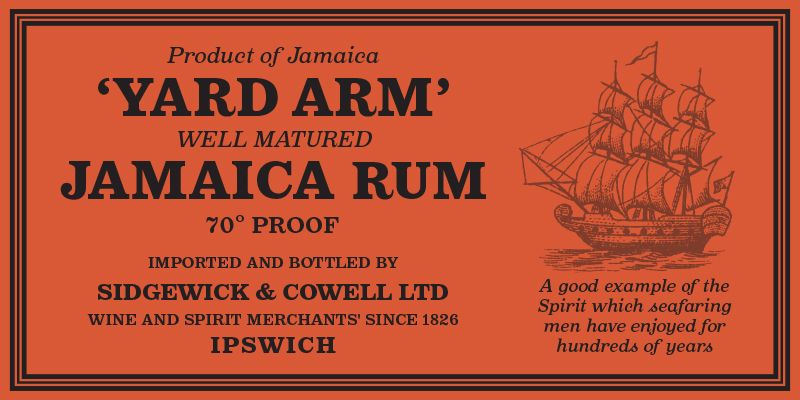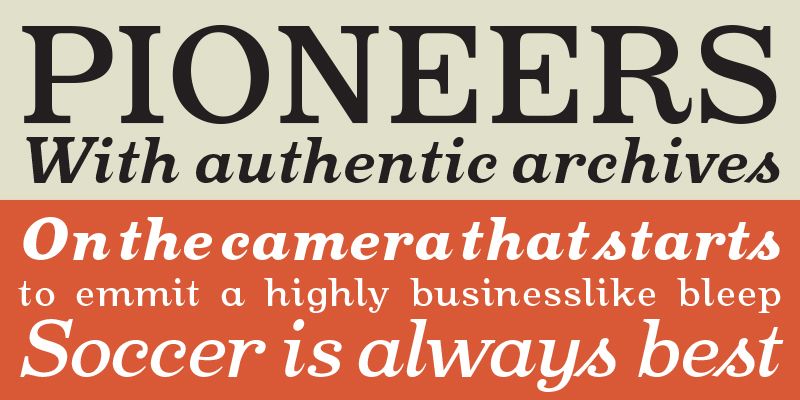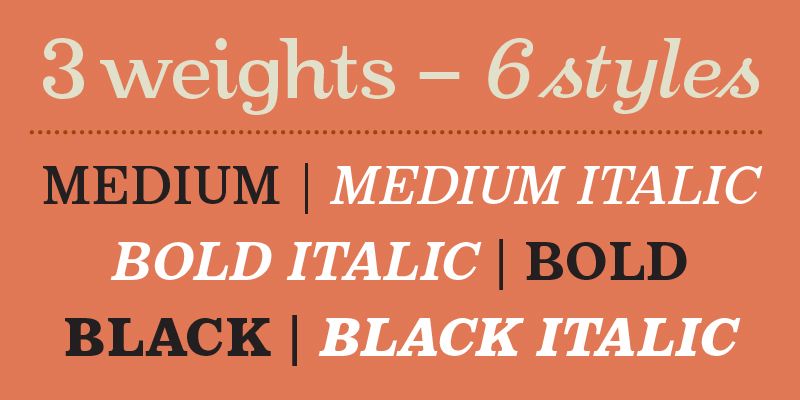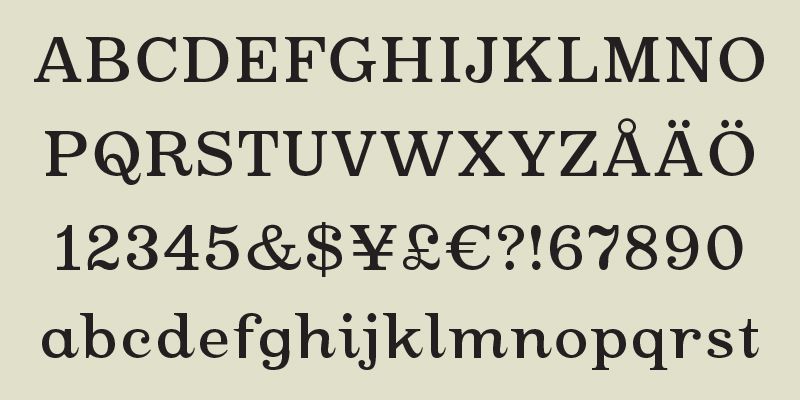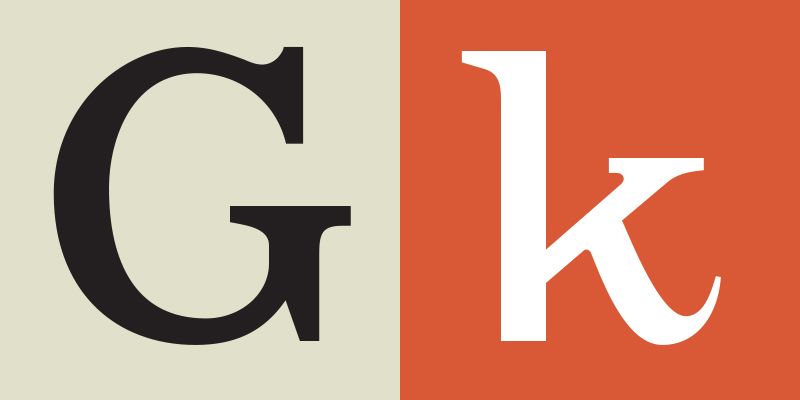
This typeface have its roots in the »Egyptienne-family« which first became popular in the beginning of the 19th century. The friendly look of this typeface have made it one of the most popular designs from MRF.